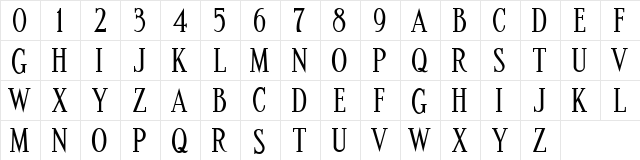
RemcoCondensedRoman XPDF Regular Font Preview
RemcoCondensedRoman XPDF Regular
RemcoCondensedRoman XPDF Regular Font Details
Design Context for RemcoCondensedRoman XPDF Typeface
RemcoCondensedRoman XPDF is a composed and adaptable typeface that performs quietly and consistently across a wide range of design contexts. The condensed width makes it efficient for tight spaces without sacrificing legibility.